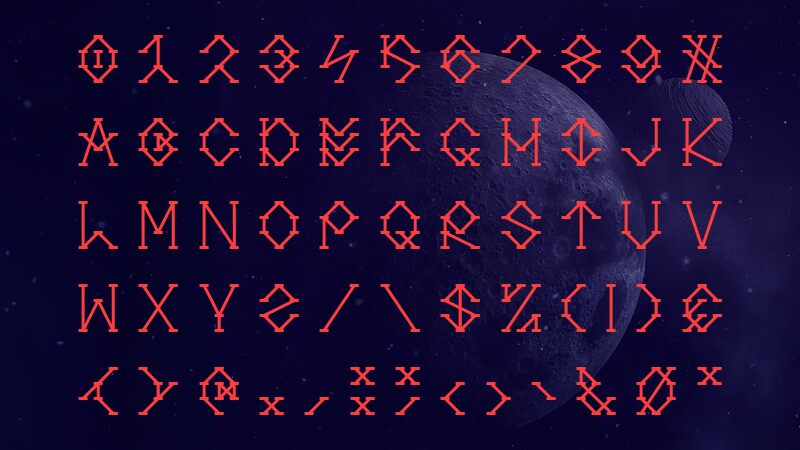
Pulstar, the brainchild of renowned font designer GGBot, is a visually stunning display font that effortlessly captures attention. With its light weight, Pulstar exudes an air of elegance and sophistication. This versatile font is perfect for a myriad of projects, including fashion magazines, luxury branding, and high-end product packaging. Its sleek lines and refined curves make it an ideal choice for editorial layouts and eye-catching headlines. Pulstar's modern yet timeless appeal ensures that your designs will stand out from the crowd, leaving a lasting impression on any audience.